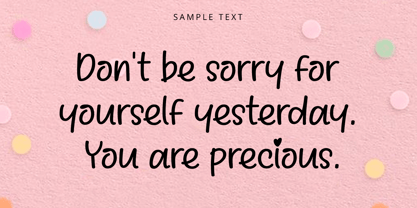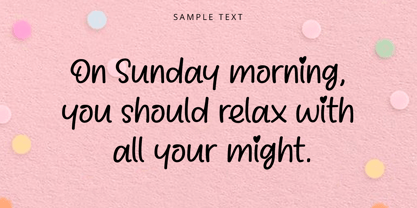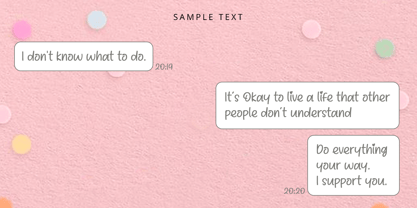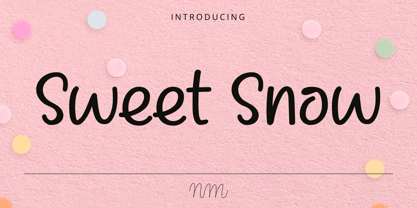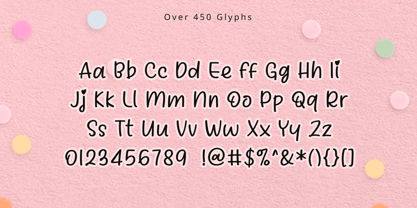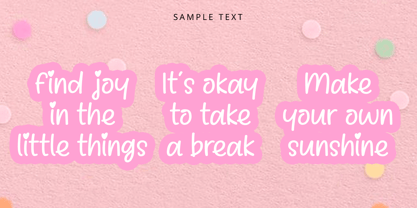
NmSweetSnow
La familia tipográfica NmSweetSnow fue diseñada por Minji Noh y publicada por NM Fonts. NmSweetSnow contiene 1 estilos. Más información sobre esta familia
Sweet Snow is a soft and charming handwritten font inspired by the gentle feeling of freshly fallen snow. Its rounded strokes and playful letterforms create a light, cozy atmosphere that feels sweet, friendly, and effortlessly cheerful.
Perfect for social media graphics, greeting cards, invitations, planners, packaging, branding, and seasonal designs, Sweet Snow adds a warm handwritten touch to any project. Its playful character works especially well for designs that call for a cute, relaxed, and approachable mood.
With over 450 glyphs, Sweet Snow offers extensive character support for a wide range of creative projects. From digital content to printed materials, it brings a little sweetness and personality to every word.